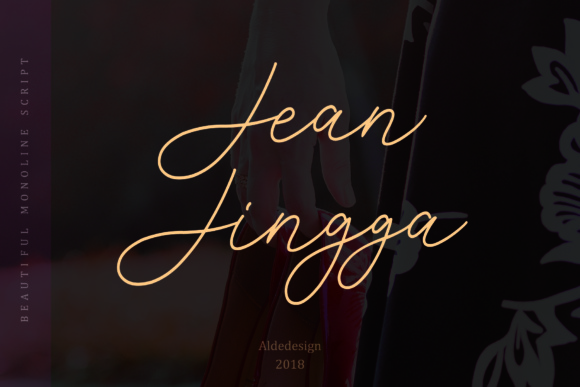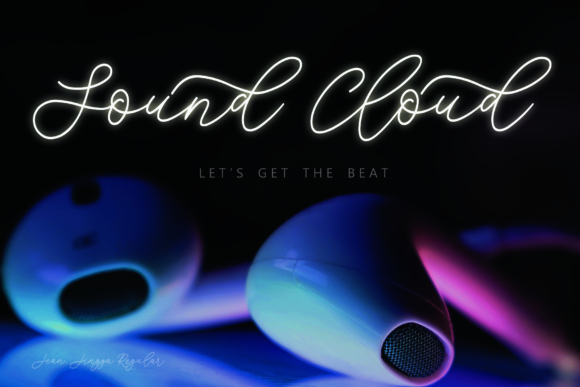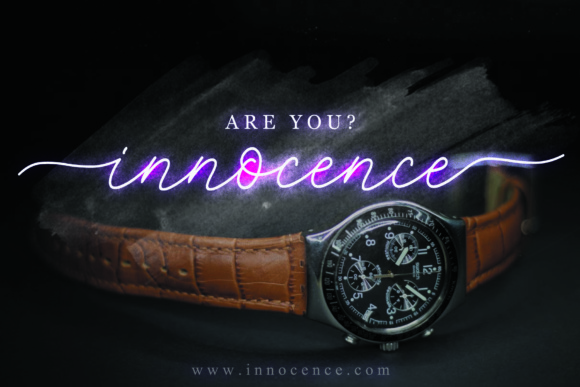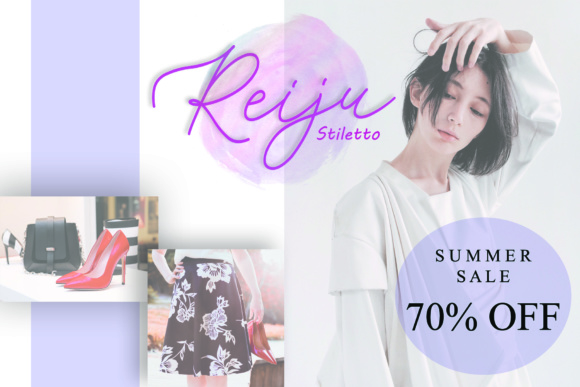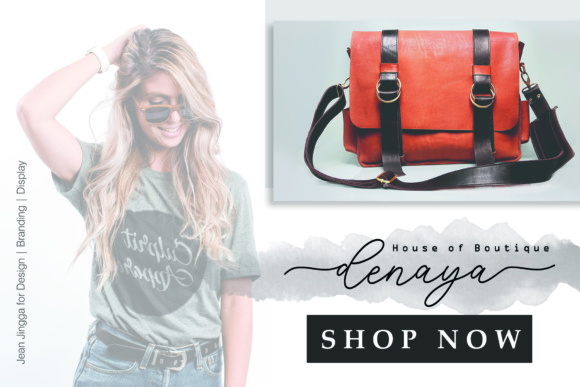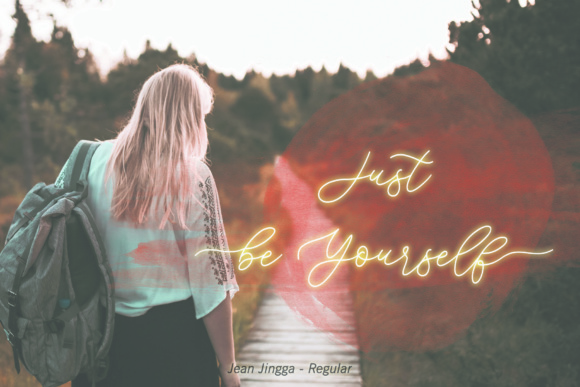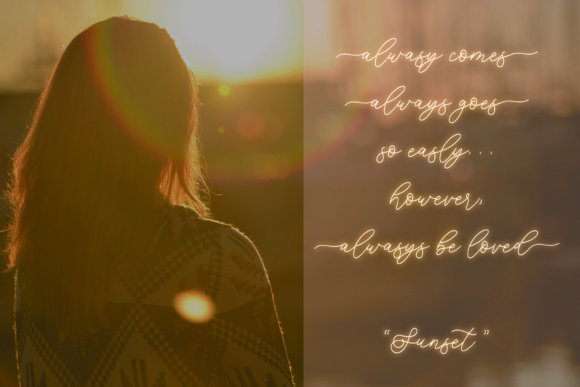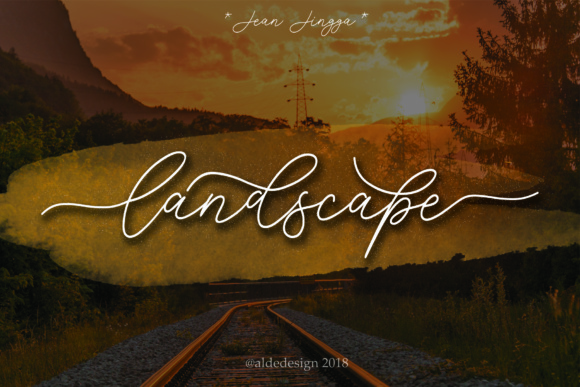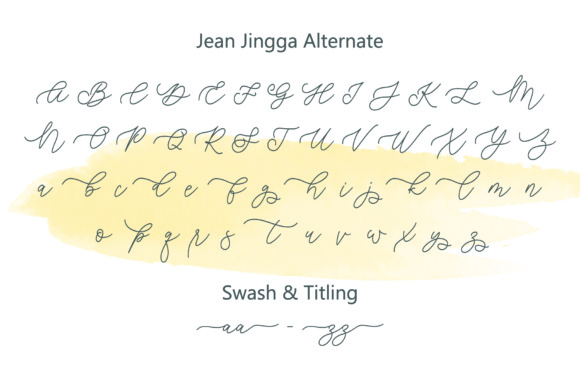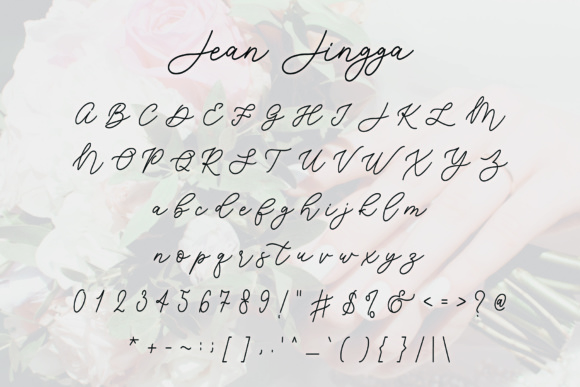
Jean Jingga Font
About Jean Jingga Font
Jean Jingga is a beautiful handwritten font with a natural and elegant look. It can be used in a wide range of design projects and is easy to use.